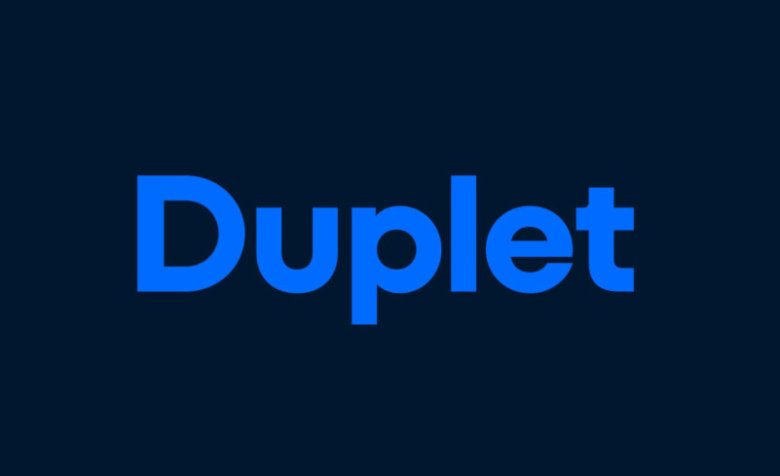
Duplet is a superfamily of refined sans-serif type families, with fourteen fonts that are carefully crafted in every detail. Duplet is part of an entire superfamily which includes not only this upright version, but also Duplet Open and Siah Rounded. There are seven different weights and styles for each font, ranging from Condensed to Extended Bold.
A total of over a dozen typefaces to choose from with matching italics (or obliques) for each one – see above image that will show up when clicked on. The fonts contain more than four hundred fifty characters, covering all languages which use the Latin script. As the Duplet typefaces are based on geometric forms, the round characters and rounder parts of other letters default either to circles or a slanted circular form (as seen in italics).
Duplet’s shapes are low-contrast, with strokes that are even in width. Because they offer support for dozens of languages which are based on the Latin script, the character sets contain many versions of accented letters. The default form of ‘a’ in each font is single-storey. The big round bowl shows that Duplet is truly geometric – yet there is an OpenType alternate which is double-storey. The standard ‘g’ is also single-storey, with its bottom stroke flattened to make it smoother and simpler-looking.
There are three more forms of ‘g’ (as alternate characters) in every Duplet font. Alternates are present for ‘k’, ‘u’, ‘G’, ‘K’, ‘M’ and the ampersand (&). The character sets also contain small-cap forms. These are punctuation marks which have been vertically repositioned so they look better when used together with all-capital texts. Numeral-wise, both proprotional lining figures and tabular lining figures are included – also fractions, superior numerals and inferiors. Diana Ove mber and Rafał Buchner are the designers.